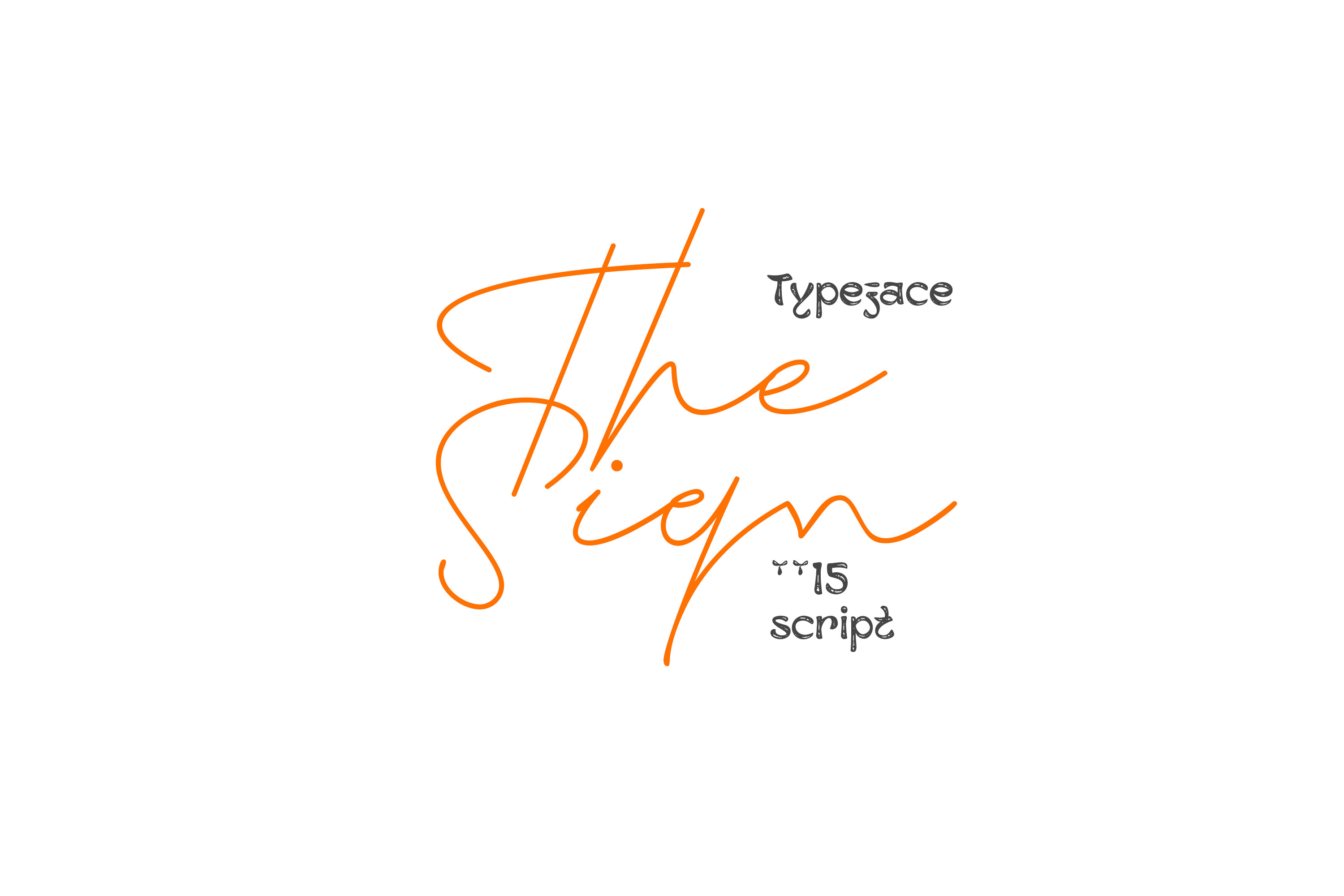
The Sign Typeface
This is a clean and elegant font. . This font belongs to the type of modern signage script display font. This will be suitable to complete your work.
The Sign includes full set of uppercase and lowercase letters, multilingual symbols, numerals, punctuation.